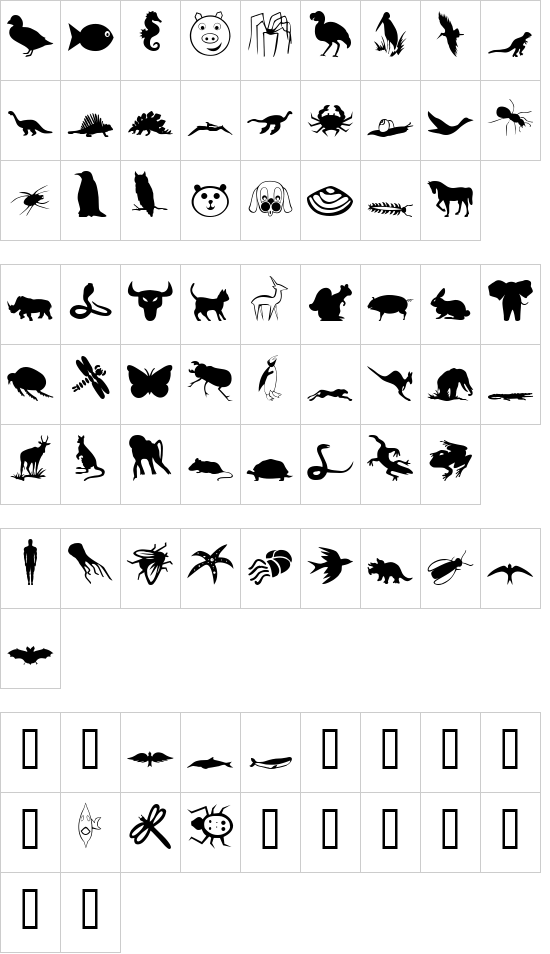
Animals 2 is a second dingbat collection packed with additional animal illustrations instead of letters. Each key delivers a new creature drawing, extending the original set with more friendly animal motifs to choose from, so you have an even wider menagerie of picture elements at your fingertips.
It works for childrens books, nature branding, classroom graphics, and cute design accents that need a friendly touch. Animals 2 is free to download as a TrueType file, and you can tap through the keys in the preview to see exactly which animals appear before you download.